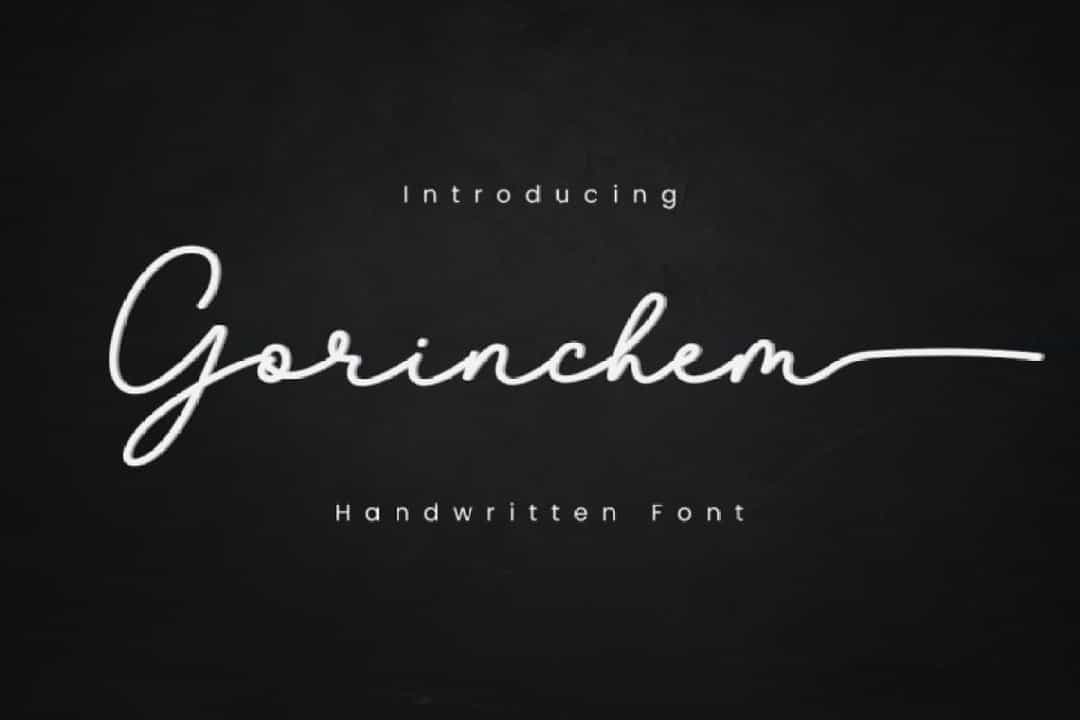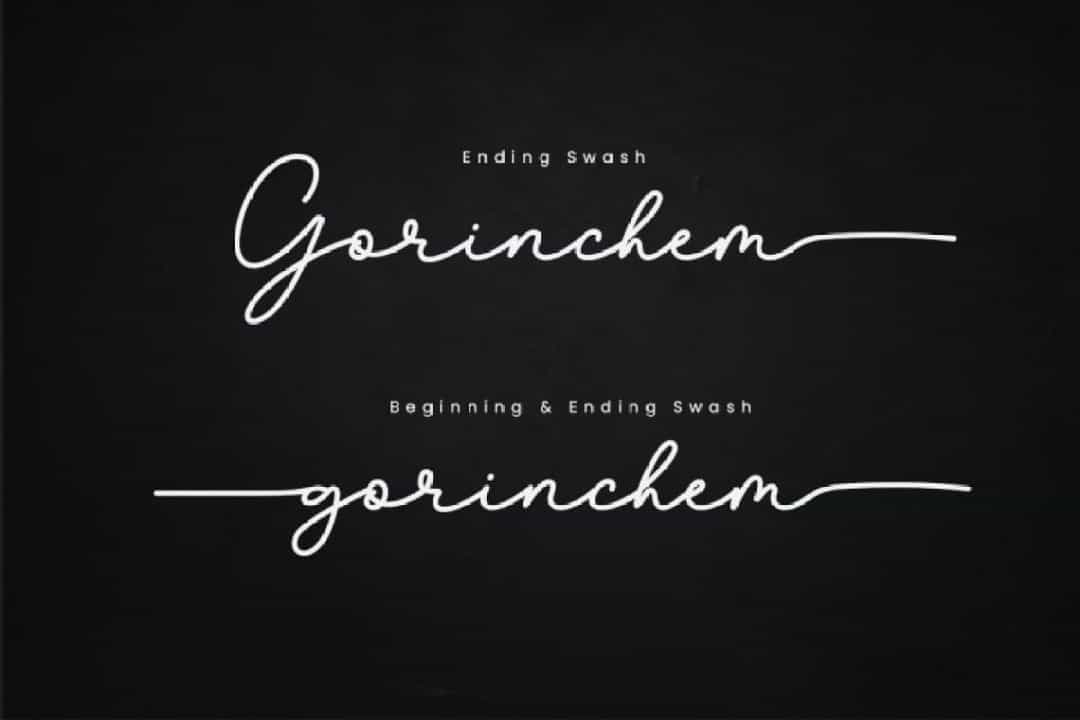
Gorinchem is a handwritten font which is designed using the monoline styles. This font has a playful and yet deeply elegant look and feel to it, and the lowercase letters have a swash feature that is simply gorgeous, cool and beautiful.